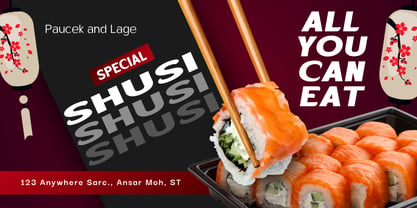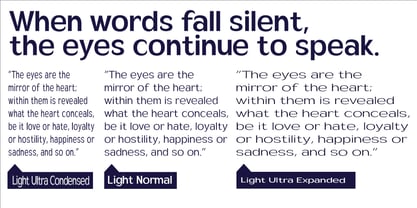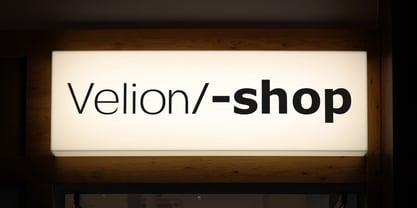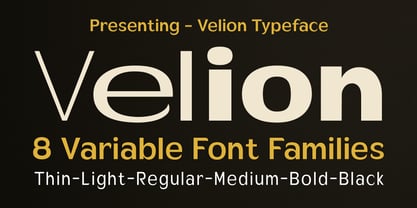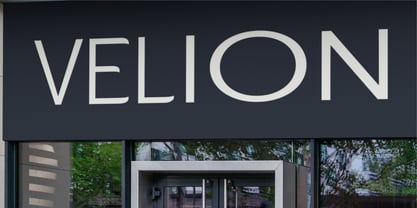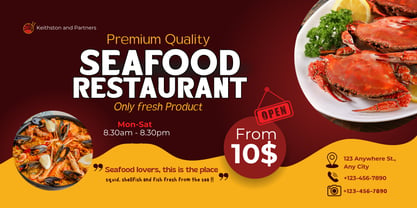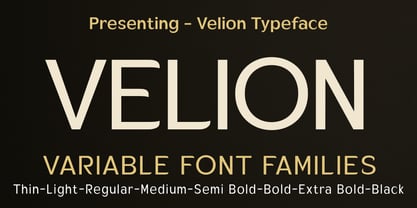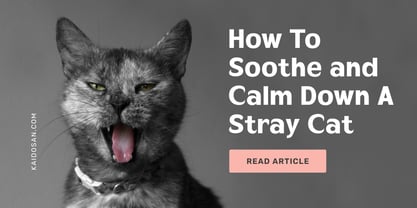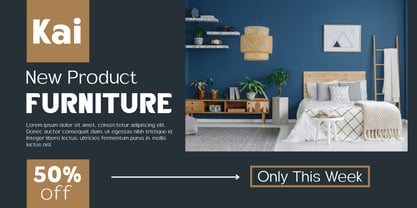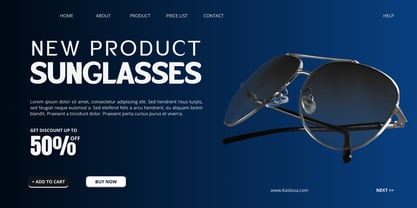
Velion Variable
VELION – Modern Sans Serif Variable Font Collection VELION is a modern sans-serif type family that blends geometric precision, minimalist aesthetics, and professional versatility. Designed for contemporary branding needs, VELION comes in 8 variable families, each with its own visual character while remaining cohesive as a complete typographic system. This collection is perfect for branding, editorial layouts, UI/UX design, logos, packaging, and premium visual communication.